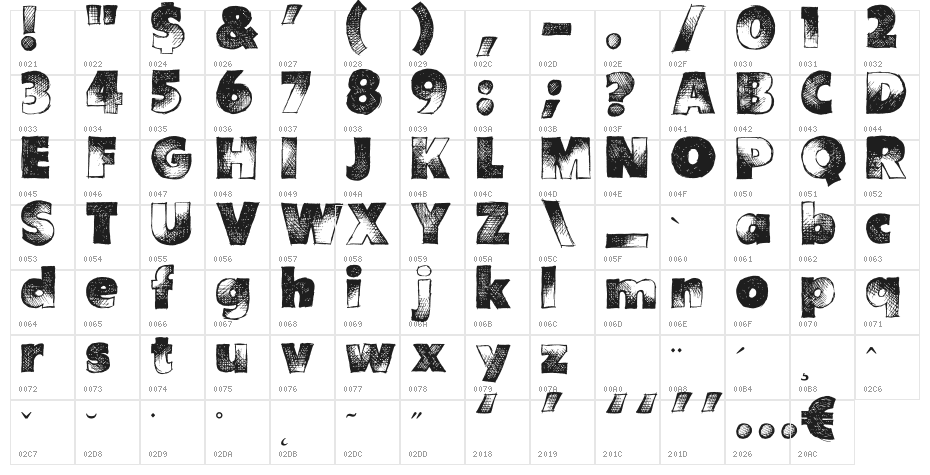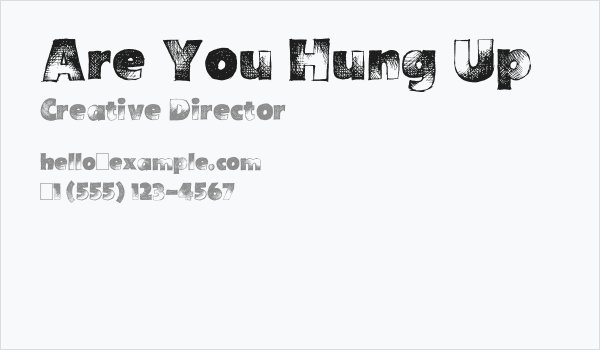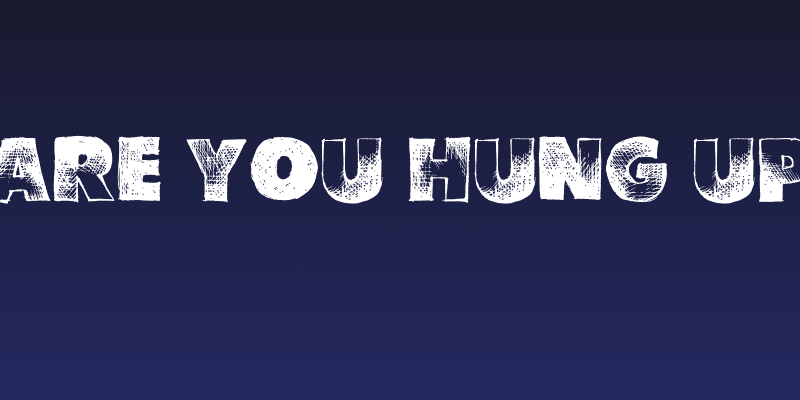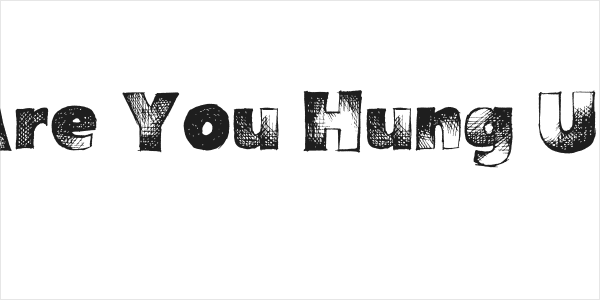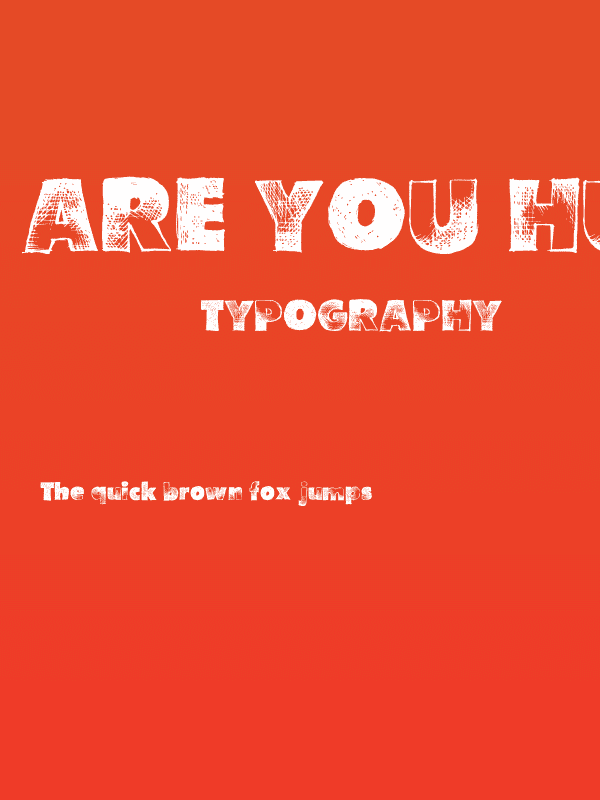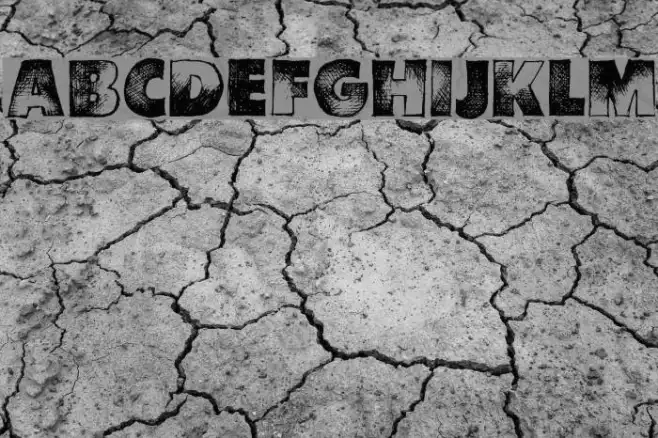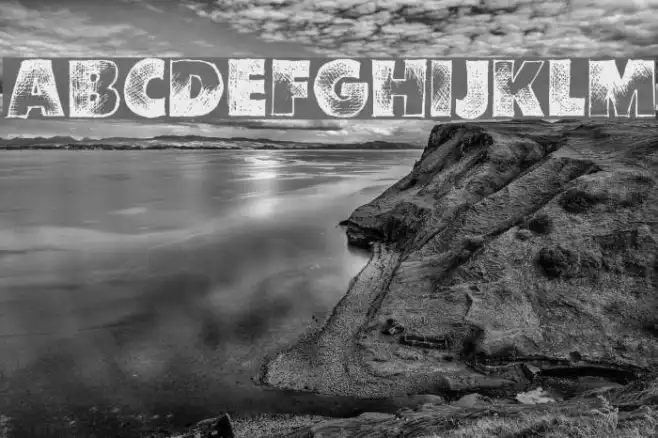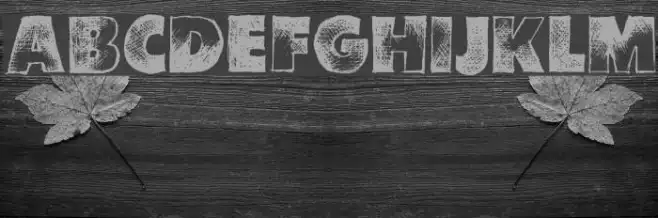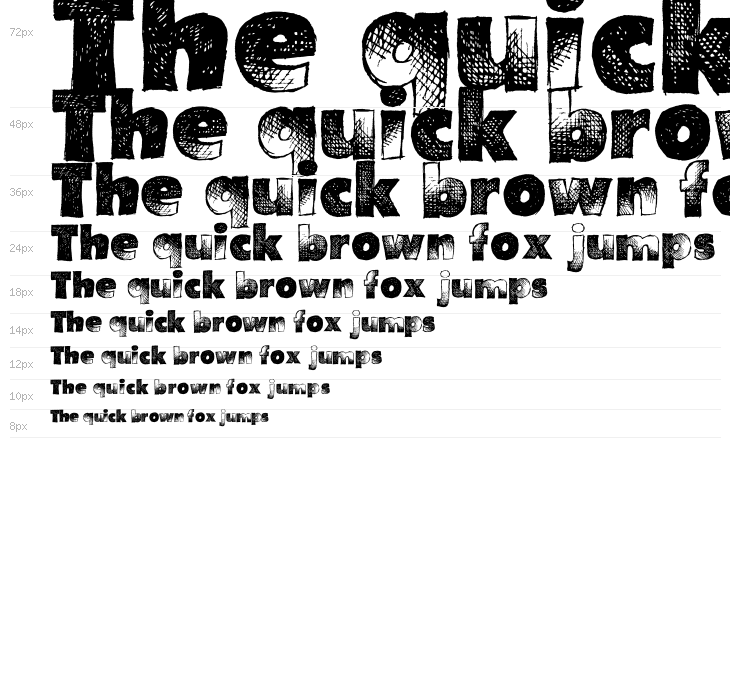
Are You Hung Up Font
Are You Hung Up Description
This font features a bold, textured style with a hand-drawn appearance. Each character is filled with intricate cross-hatching, giving it a unique, artistic look. The letters are uppercase and lowercase, with numbers and special characters included. The design is playful and eye-catching, making it ideal for creative projects. The boldness of the font ensures it stands out, while the textured details add depth and interest. It's perfect for designs that require a touch of whimsy and creativity.
| Proposed Projects | Ideal for posters, album covers, artistic branding, and creative advertising. |